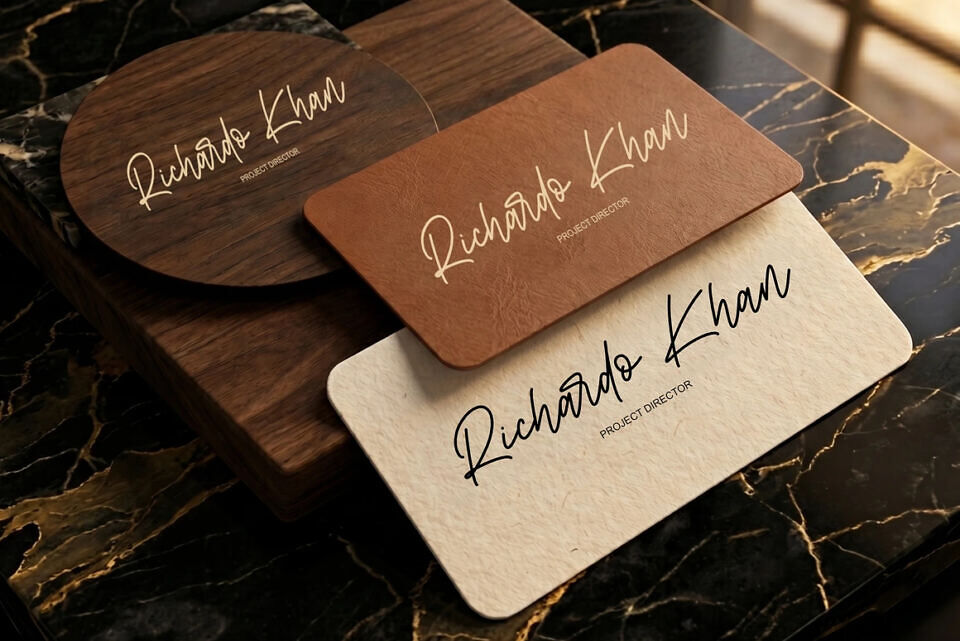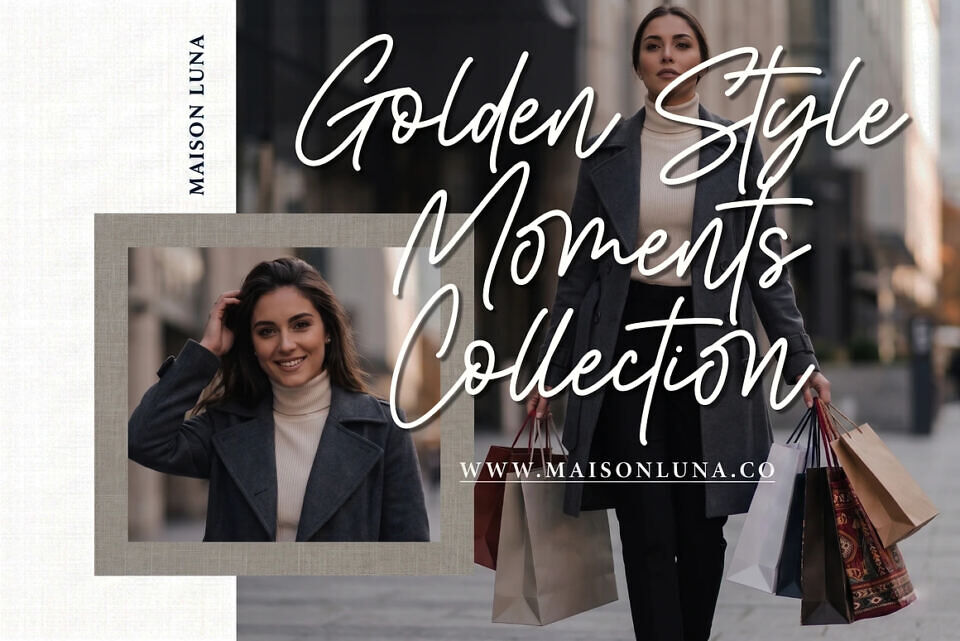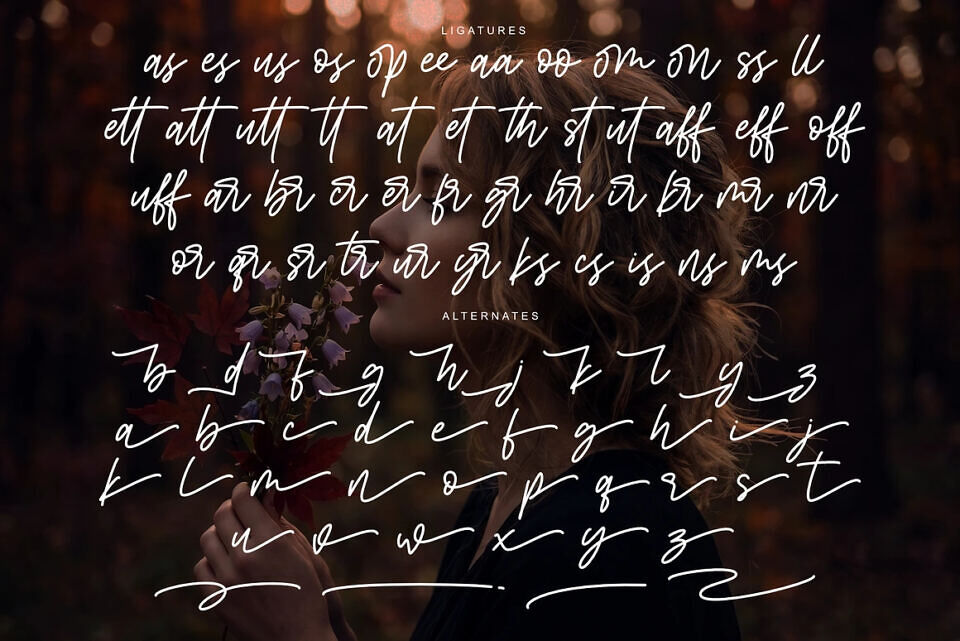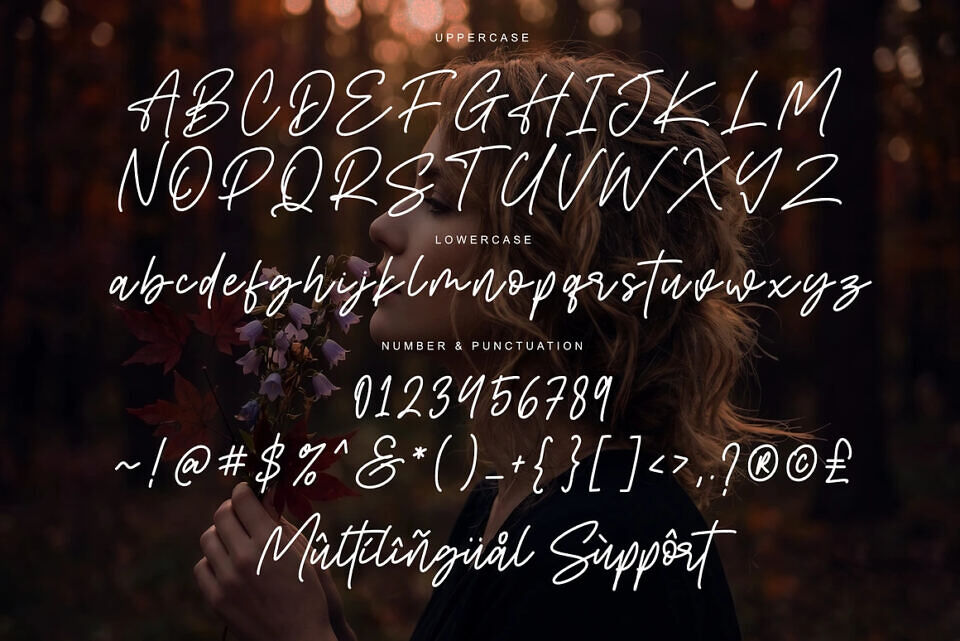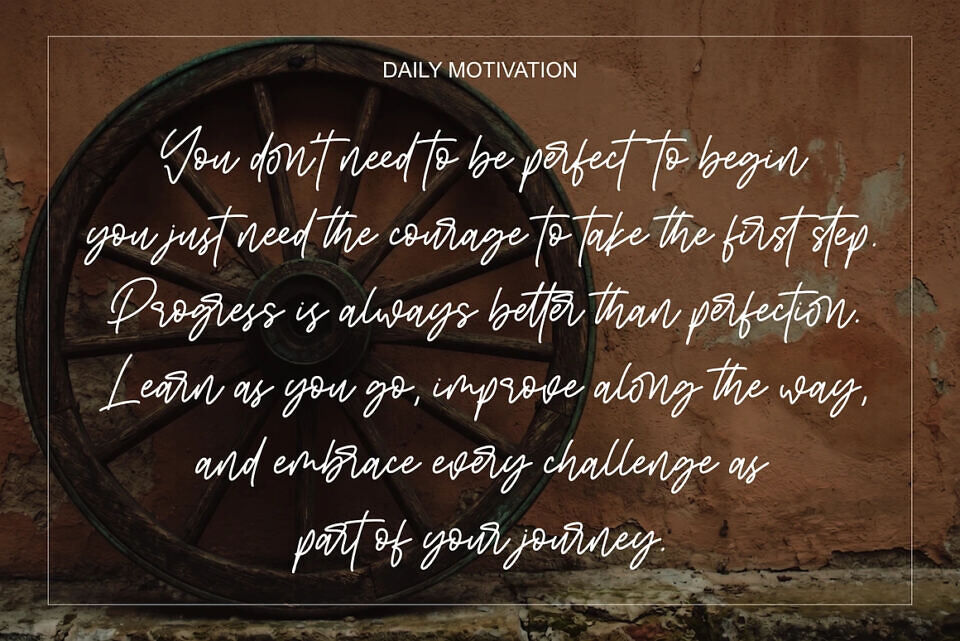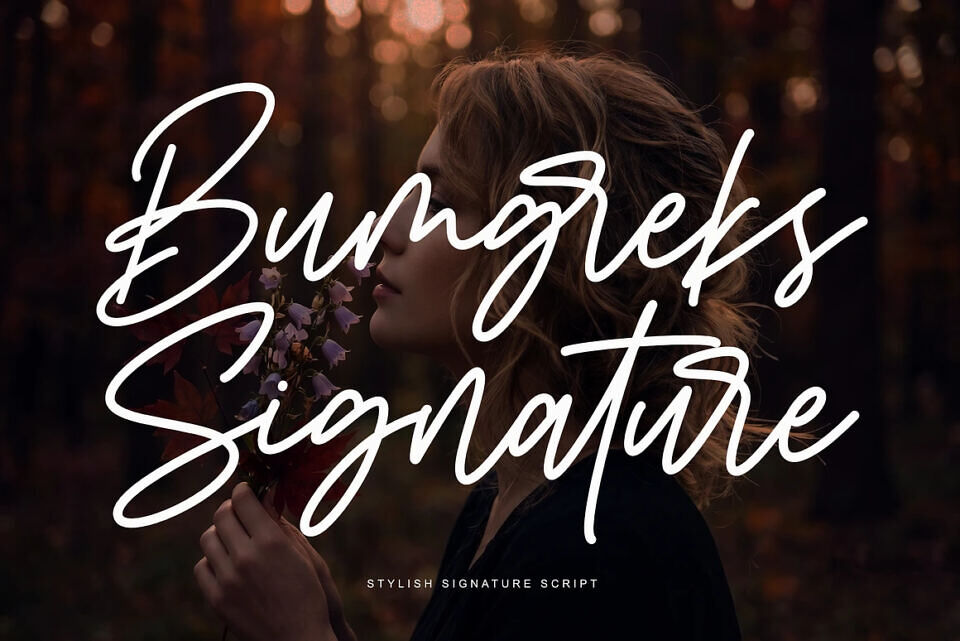
Bumgreks Signature Font
Bumgreks Signature is a stylish and elegant handwritten script font crafted with a natural flowing stroke and modern signature style. Designed to capture the essence of sophistication and authenticity, this font features smooth curves, balanced proportions, and expressive letterforms that bring a luxurious handwritten feel to any project.
With its clean yet artistic look, Bumgreks Signature is perfectly suited for branding, logos, wedding designs, social media content, product packaging, and high-end editorial layouts.